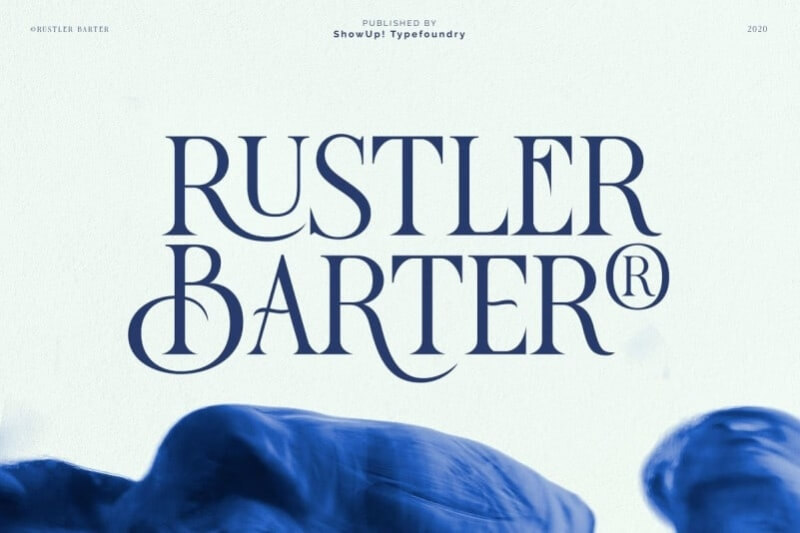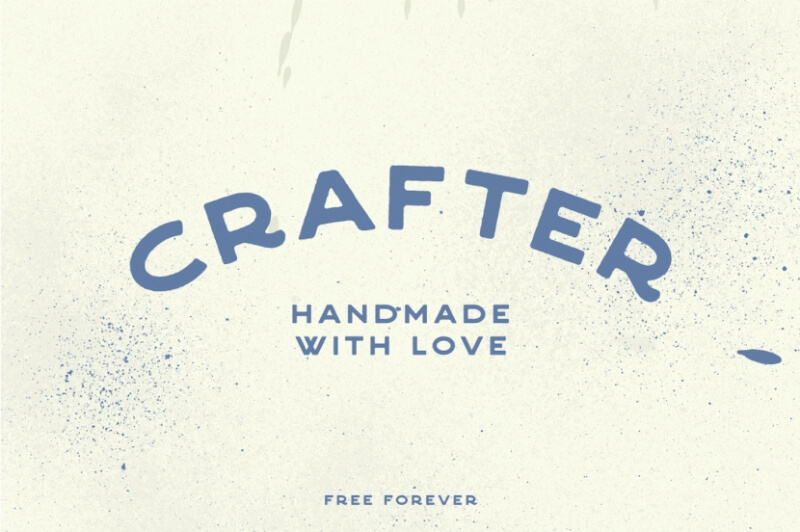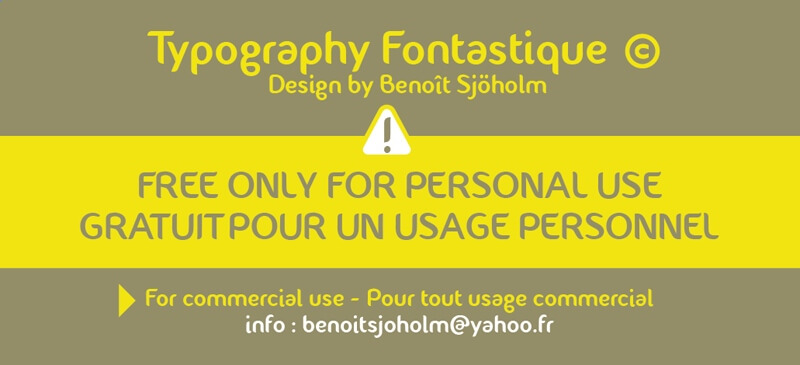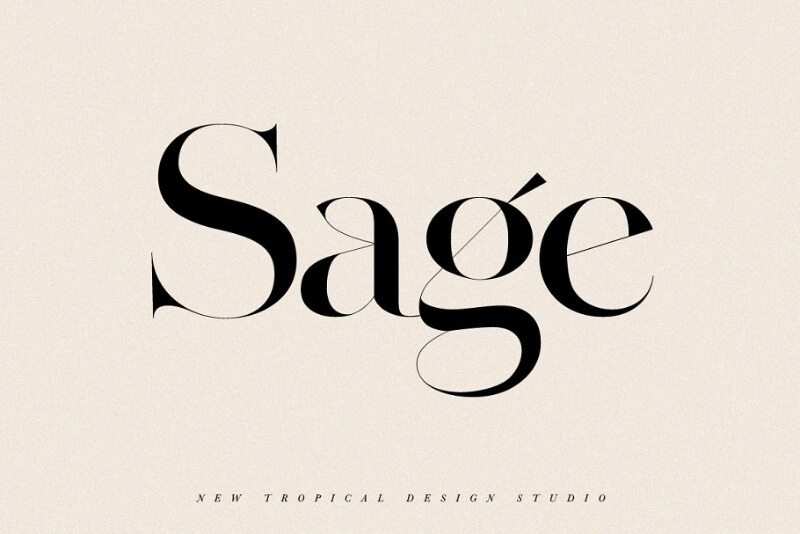
23 Best Cookbook Fonts for Delicious Designs
Unique appetizing dishes, good photo or illustration, clever title… Only one thing is missing in this recipe for a perfect cookbook cover design, and that is a great cookbook font. Check out 23 of them that will perfectly tie all the ingredients.
If you’re working on a cookbook, compiling family recipes, or simply doing research for designing a good cookbook cover, chances are you need suggestions for a good cookbook font too.
You’re in the right place! Here are the best cookbook fonts for virtually any type of cookbook!
Handwritten fonts
Cursive, handwritten and slightly decorative fonts aren’t the typical choice for book cover design since they are more noisy and in-your-face. But a cookbook isn’t any book—it’s homely, colorful, playful and accepting of more flair. And a handwritten font can give exactly that homemade feel to your cookbook cover when combined well with the other design elements.
1. Billion Dreams (free for personal use)
Billion Dreams is a lovely font with elegant ligatures and alternate styles that can easily fit your cookbook cover design. Even though it is cursive, it’s still legible and the thick brushstrokes make it a stylish typeface that will give personality to your cover.
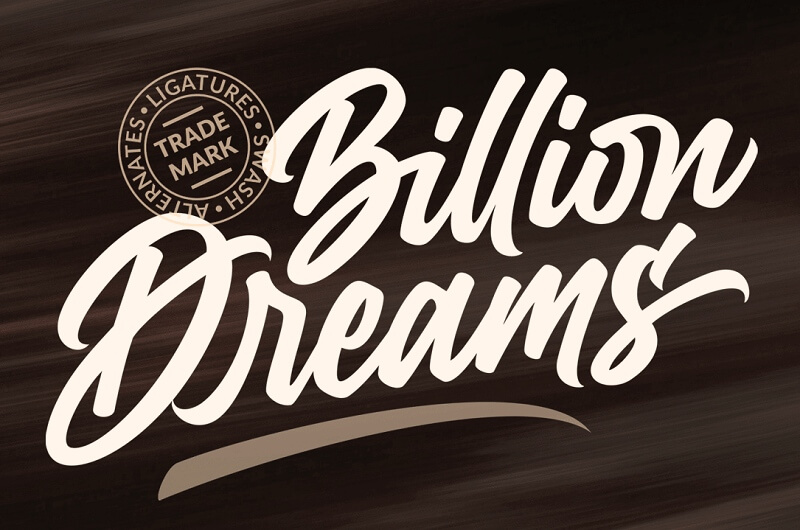
2. Wild Hazelnut (free for personal use)
Another free-flowing and versatile typeface, but slightly more legible because it’s not fully cursive. Wild Hazelnut is a cute and intricate font that will add some extra taste to your design.
3. Sharpie Pro Typeface (purchase only)
If you want to add zest and youthfulness to your design, look no further than this font. Sharpie Pro is creative and fun recipe book font, but legible and practical. It will look great combined with a simple sans serif as a secondary font.
4. Sophia (free)
This hand-lettered brush style typeface is feminine and sweet and will make a great combination with a colorful illustration cover, like in this cute example. The font pack has both uppercase and lowercase letters, extra styles and ornaments, so you won’t run out of combinations for sure.
5. Bold Lining (free for personal use)
If you want a handwritten font that is still not extremely decorative and has a sterner structure, Bold Lining is the right choice. It will be a great addition to a cookbook cover that is designed in the style of a family recipe book, or a design with a scrapbook feel to it.
6. Wild Blood (free for personal use)
And here is another example of a signature cursive font, this time an extremely elegant and thin one. Wild Blood makes for a pretty and stylish solution, but be wary that it might not be visible if you add it to a colorful and noisy background.
Simple and crisp cookbook typography
Like any good recipe, there is one basic, very simple element that allows for experimentation and creativity with everything else around it. You can use this age-old approach when it comes to fonts too: opt for a simple one and let the photography or illustration on your cover be the centerpiece. Here are some simple but captivating logos that will look beautiful on your cookbook cover.
7. Coolvetica (free)
Coolvetica is a fairly well-known and widely used font, sort of like how eggs or salt go with almost anything. It is a sans serif font based on Helvetica (but cooler, as the name suggests). Pair it with thin script secondary font, or simply over a classy photograph of the dishes your readers will soon be cooking up.
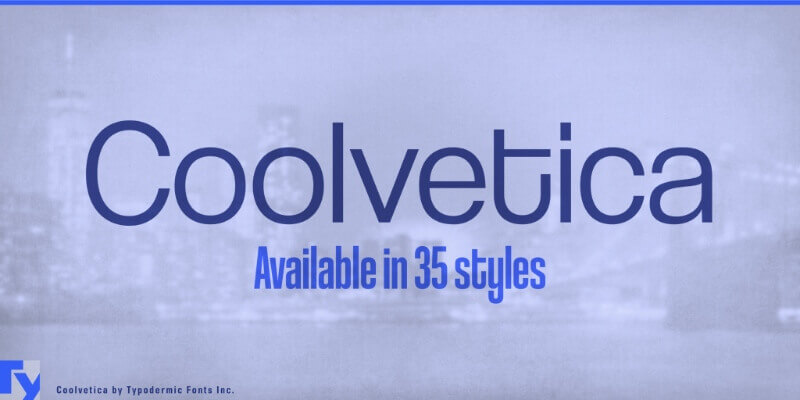
8. Caviar Dreams (free)
A font that has “caviar” in its name must be a delicacy, right? This lovely and classy sans serif font has sharp edges and more geometric shapes, that will add a dash of elegance and stylishness to your cover.
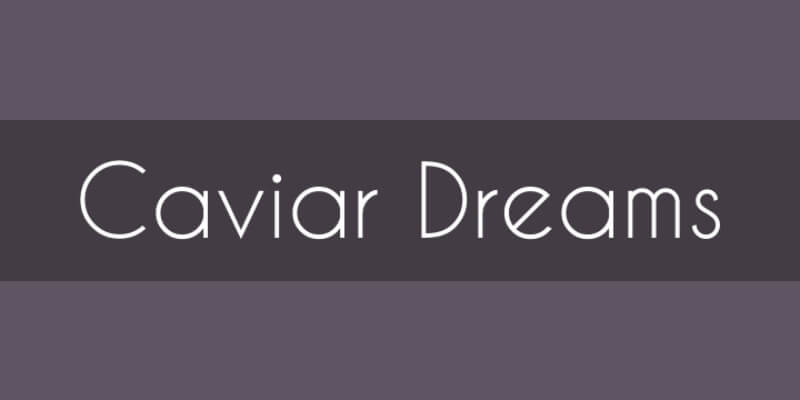
9. Arca Majora 3 (free for personal use)
The third version and upgrade of the Arca Majora typeface is a slightly bolder and more noticeable option than the other simple sans serif fonts, based on geometrical shapes and possessing strong legibility.
10. Morn (free for personal use)
Morn is a font family consisting of 22 different styles, the base of which is a sharp geometric font with a roman proportion. Each of the characters comes from either a circle or a triangle shape. It supports many European languages, not just the standard English alphabet.
11. Raspoutine (donationware)
This basic, but elegant sans serif font has very subtle curvature and is slightly italic, while still maintaining the legibility and classiness. It vaguely resembles the Nesquik font, but Raspoutine is more stern and versatile.
12. Clemente (free)
This elegant sans serif has unique angles of the letters, that makes it perfectly suitable for headlines and book cover titles. Clemente is stylish but clean and non-decorative, so it will go perfectly with a captivating photograph for your cover.